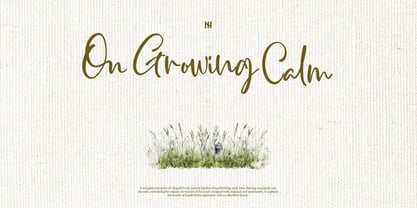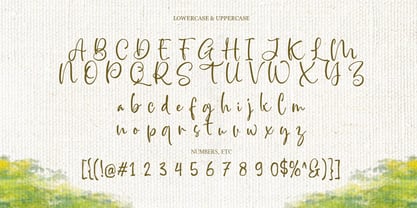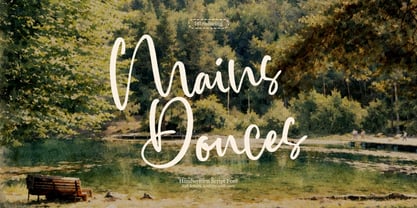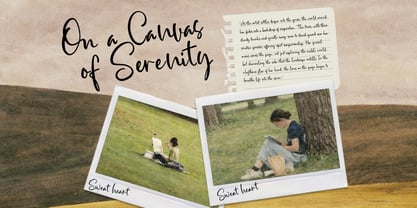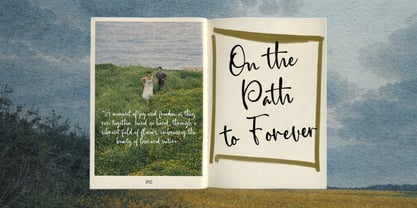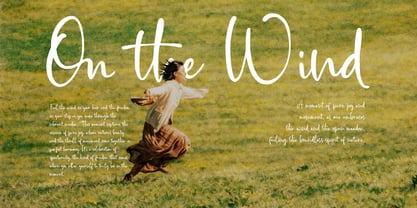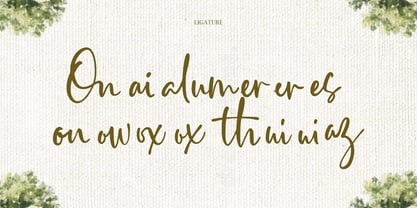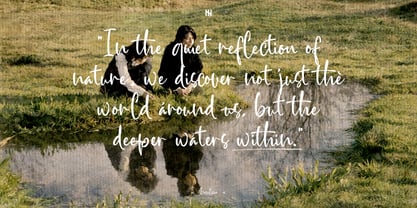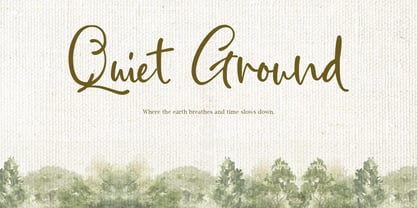
Mains Douces
by Inviline
The Mains Douces Font Family was designed by Virgiawan Listanto and published by Inviline. Mains Douces contains 1 styles. More about this family
This handwritten script font beautifully embodies the serene rhythm of nature through its soft, flowing strokes and organic letterforms, exuding warmth, sincerity, and effortless elegance. It includes a comprehensive set of uppercase and lowercase letters, numbers, punctuation, stylistic ligatures, and multilingual support, ensuring it moves gracefully across various layouts. Ideal for wedding invitations, branding, editorial titles, book covers, packaging, social media quotes, photography overlays, and any project that seeks a gentle, timeless, and heartfelt handwritten touch.
Designers: Virgiawan Listanto
Foundry: Inviline